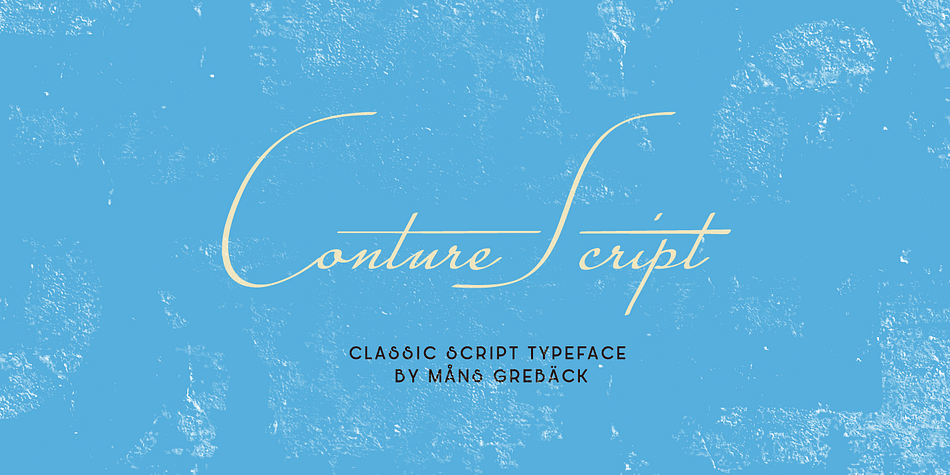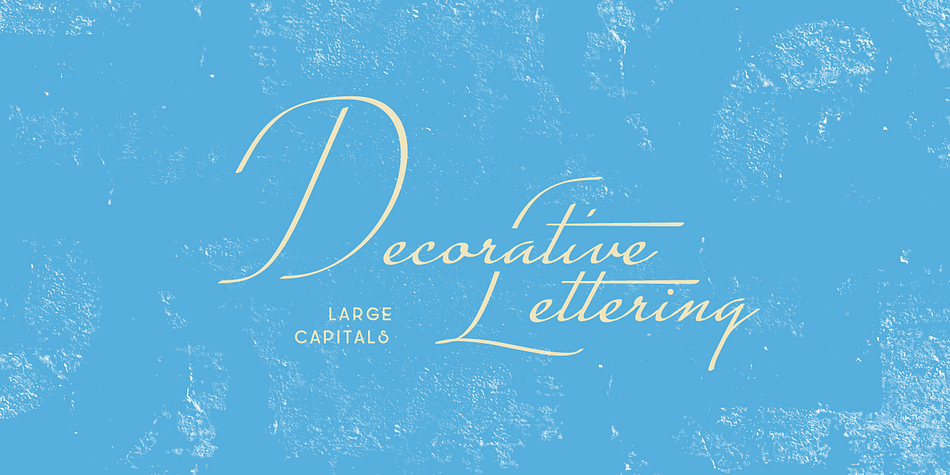
Designed by Måns Grebäck, Conture Script is a script font published by Måns Grebäck.
Conture Script is a classic script typeface with a thin contour.
This high-quality font is drawn and created by Måns Grebäck during 2017.
With its hundreds of glyphs, Conture Script supports a very wide range of languages.